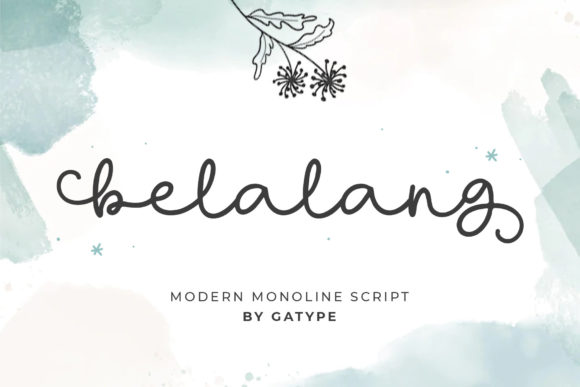
Unleash your creativity with Belalang Script, the captivating monoline font that adds an air of elegance and charm to your designs. Crafted by gatype, this stunning script font is the perfect choice for logo design, branding, clothing design, signage, and more.
Belalang Script's graceful lines and smooth curves bring a touch of sophistication and allure to your creations. Whether you're designing a logo for a fashion brand, creating eye-catching posters, or adding a personal touch to wedding invitations, Belalang Script delivers.
With its remarkable versatility, Belalang Script adapts seamlessly to a wide range of projects. Its clean and legible structure ensures readability in various applications, from headlines and posters to body texts.
Embrace Belalang Script and experience the joy of crafting designs that captivate and inspire. Let your imagination soar as you explore the endless creative possibilities with this enchanting script font.